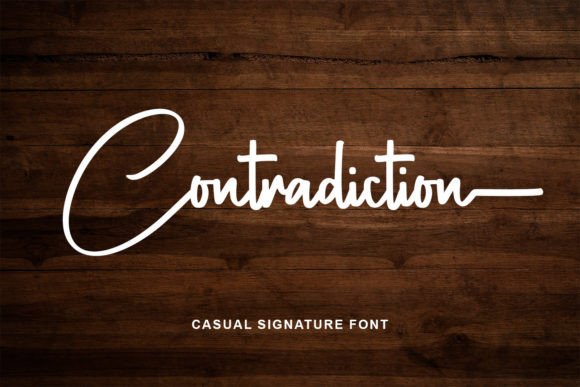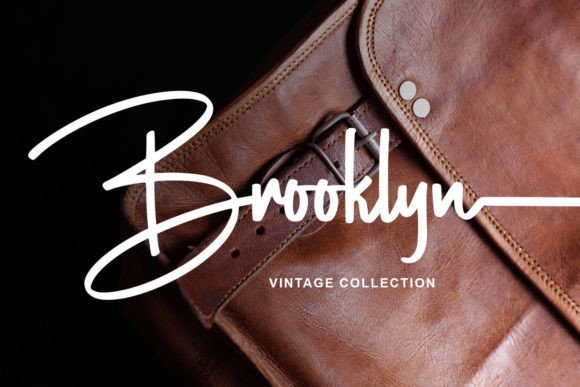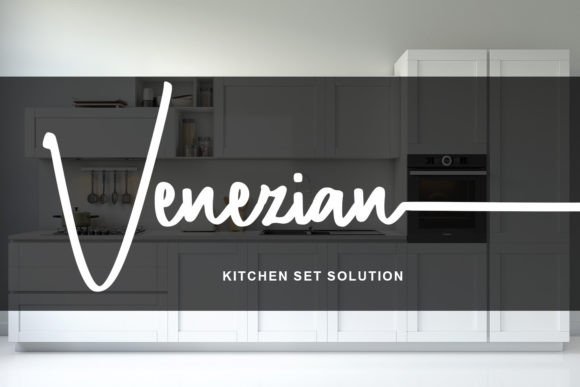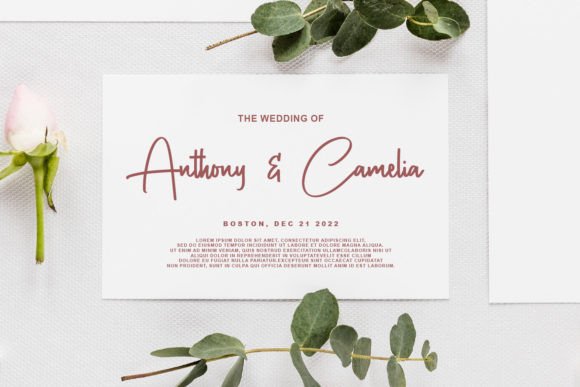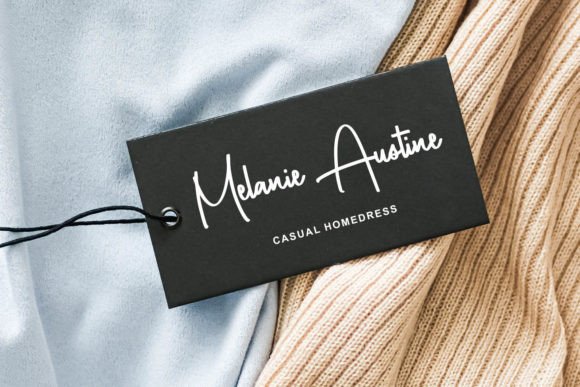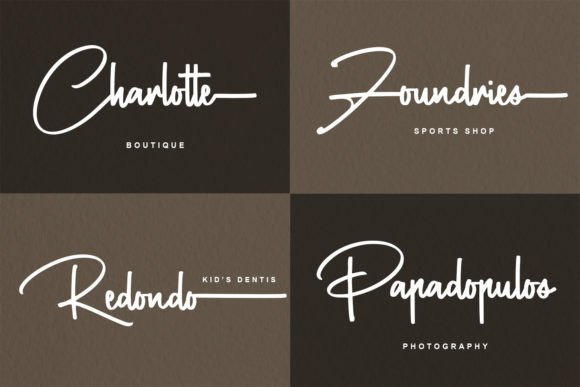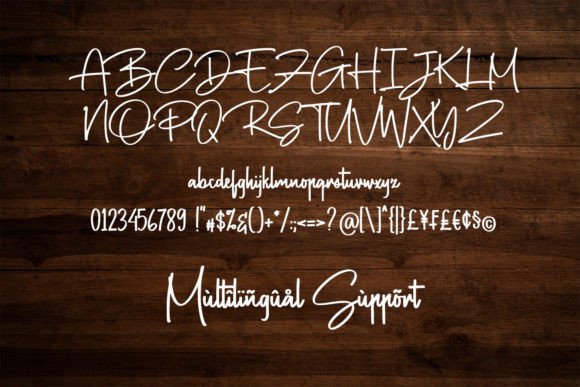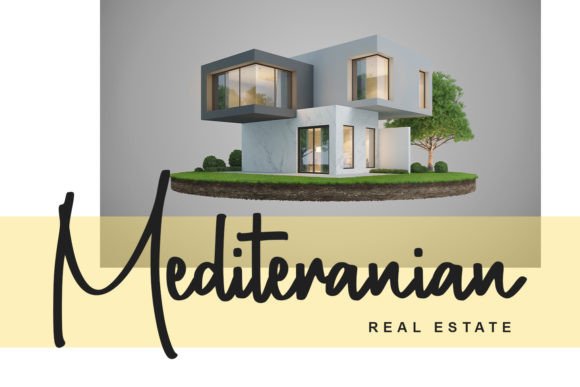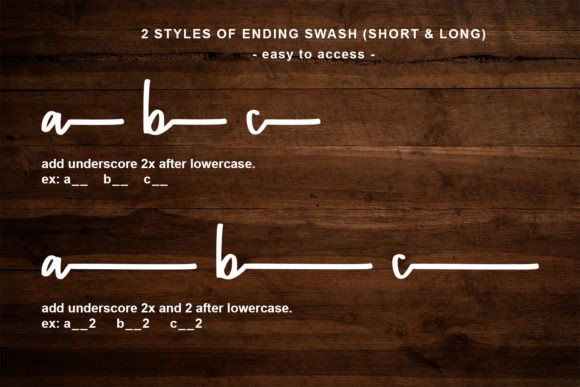
Contradiction Font
About Contradiction Font
The Contradiction Font download brings you a bold, casual signature typeface that exudes confidence and creativity. Designed with a natural, hand-drawn style, Contradiction stands out with its strong strokes and expressive curves, making it ideal for projects that need to make a statement.
Whether you’re designing a personal brand or launching a product line, this handwritten script delivers both power and personality. Its authentic, casual look gives every project a handcrafted and stylish finish.
Designed for Impact
You can use the Contradiction Font download in a wide range of creative applications, including:
• Bold logo designs and expressive branding
• Signature-style t-shirt prints and fashion tags
• Custom tote bags, quote art, and banners
• Eye-catching social media graphics and stories
• Event invitations, cards, and modern ads
Its versatility and confidence make it a strong fit for both personal and commercial use.
Features of Contradiction Font
Here’s what makes the Contradiction Font download a standout choice:
• Handwritten signature style with bold, clean strokes
• Ideal for modern branding and artistic design
• Balanced and readable across digital and print formats
• Adds personality and depth to every project
Whether you’re building a lifestyle brand or crafting a signature look for your product packaging, Contradiction Font adds authenticity and strength.
Turn your ideas into expressive visuals with the Contradiction Font download. It’s the perfect typeface for bold statements and stylish impressions—designed to bring every creative vision to life.